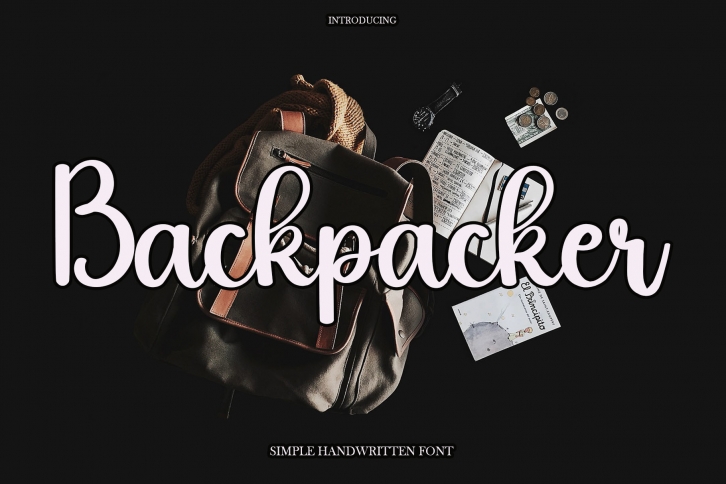
Backpacker is a trendy handwritten font with a contemporary atmosphere and impeccable form, inspired by timeless classic calligraphy. It will add elegance and class to any of your design projects. This font can be used to write various kinds of products according to the aspect of each need.